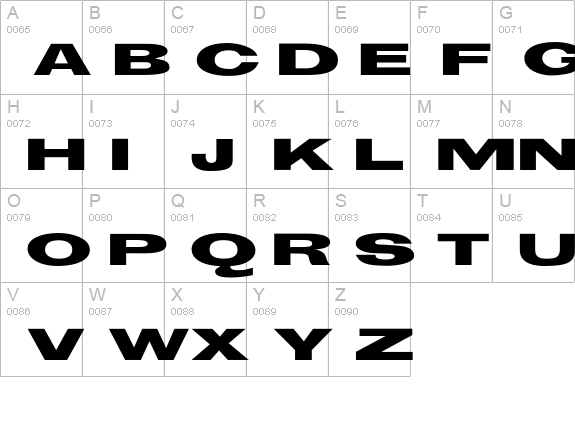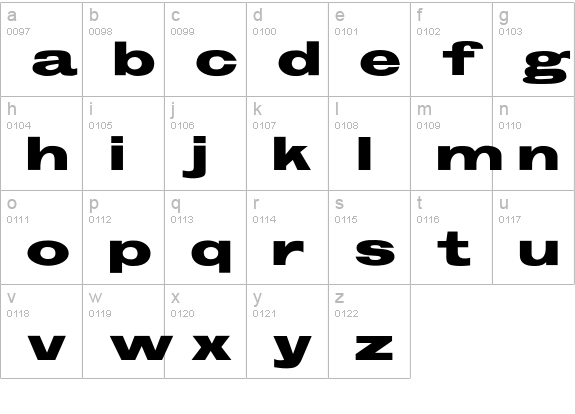
GroschenExtraExtended Font Details
GroschenExtraExtended font is a versatile and modern typeface that exudes sophistication and style. With its extended characters and sleek lines, this font is perfect for a wide range of design projects, from branding to editorial design. The clean and elegant look of GroschenExtraExtended font makes it a popular choice for designers looking to elevate their work with a touch of class. What sets GroschenExtraExtended font apart is that it is not only aesthetically pleasing, but it is also completely free to download. Yes, that's right - you can access this high-quality font at no cost on FontsMarket.com. By offering this font for free, designers can easily incorporate GroschenExtraExtended into their projects without any financial constraints. Whether you're working on a website, a poster, a logo, or any other design project, GroschenExtraExtended font is sure to make a statement. Its extended characters add a unique flair to any text, ensuring that your design stands out from the crowd. Download GroschenExtraExtended font today and take your design to the next level - for free!